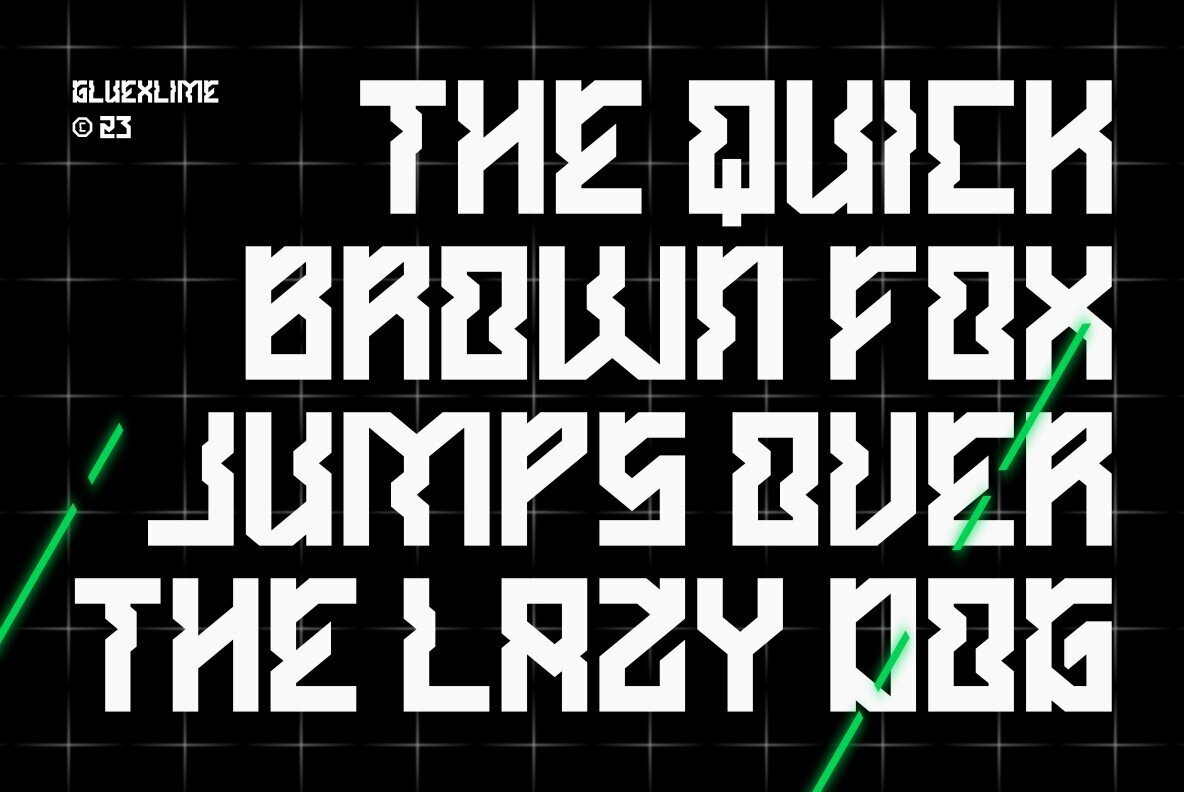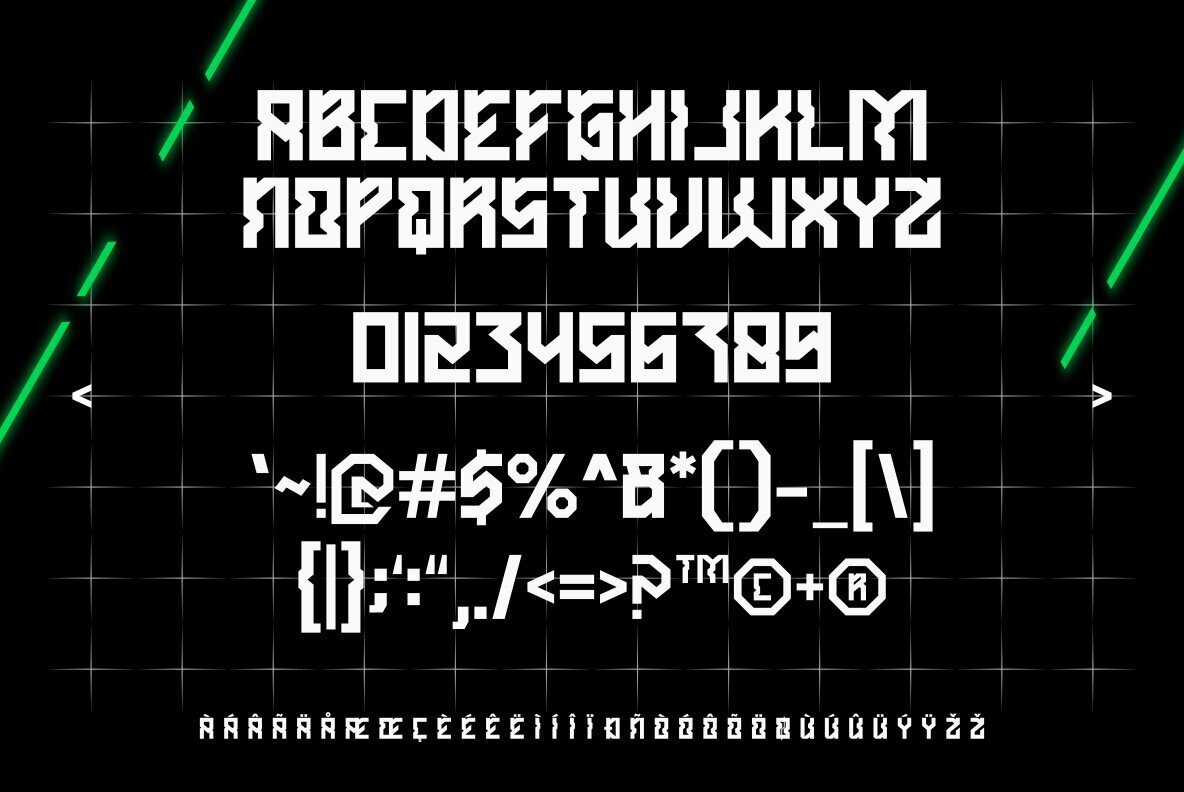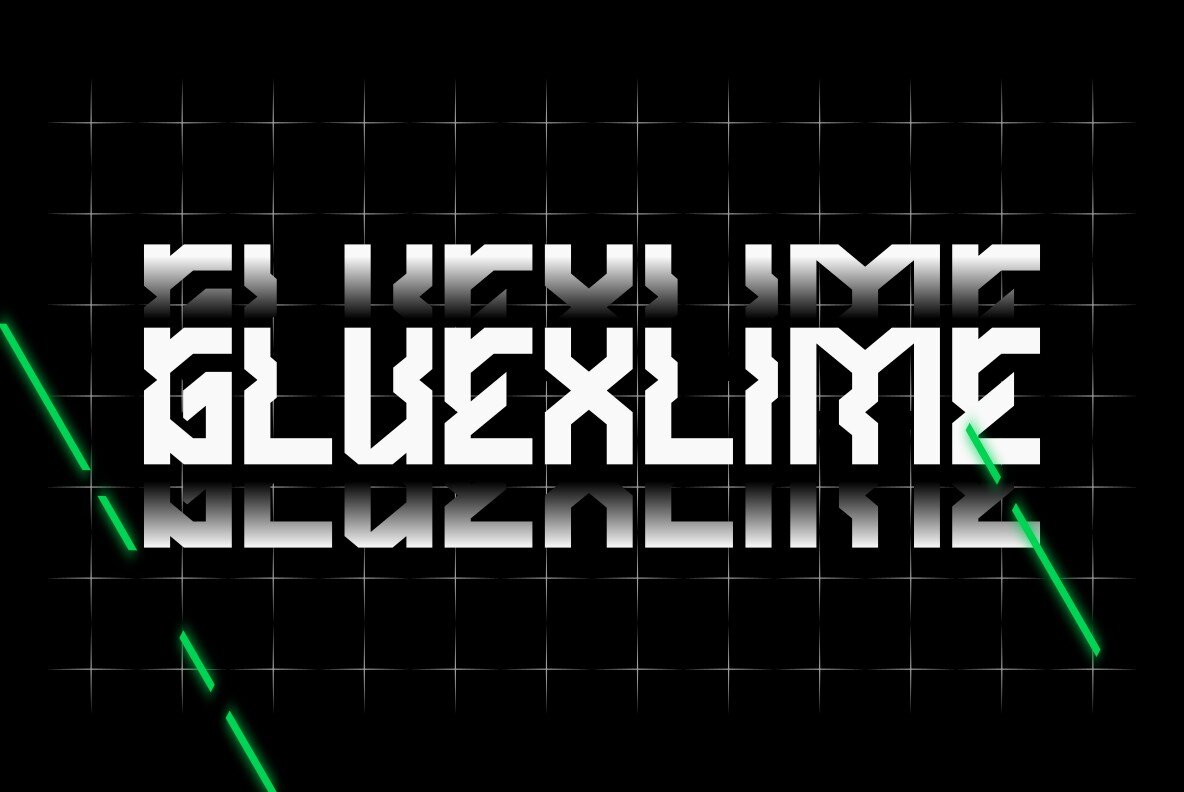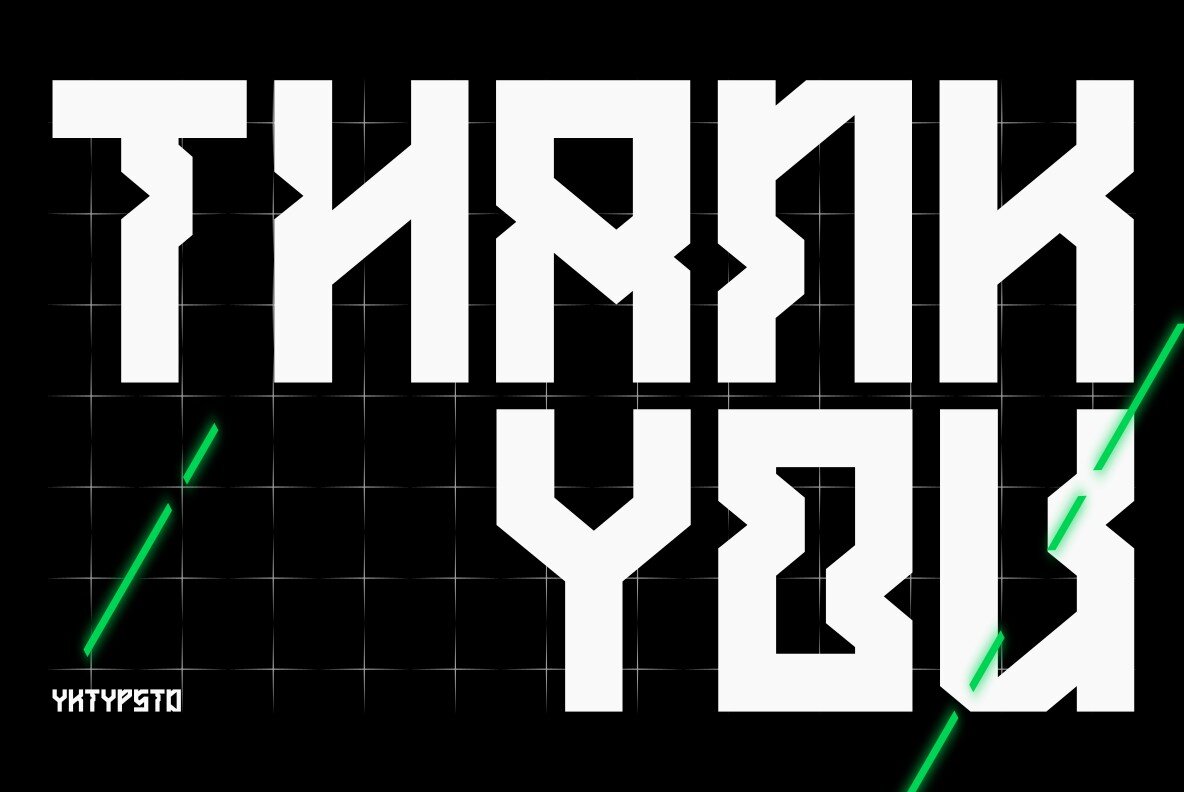
Gluexlime Font
Gluexlime Regular
Gluexlime is a bold font designed to make your titles stand out. With a fresh take on modern letterforms, it brings forward-thinking creativity to any text. Perfect for designers looking to make a strong visual impact.